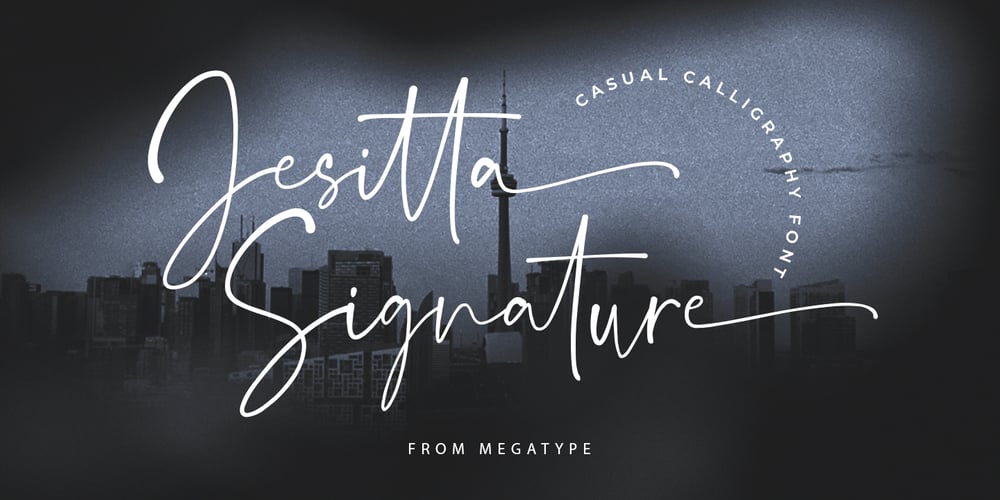
Jesitta Signature Swash
Jesitta Signature Swash font
Jesitta Signature Swash Font Family was designed by M Akmal and published by Mega Type. Jesitta Signature Swash contains 2 styles and family package options. Jesitta Signature Font is a modern and elegant signature style script font with magical ink strokes.Jesitta Signature is a great choice for watermarks on photography, advertising, logos & branding, watermarks, weddings, invitations, product design, labels and other design projects.Please contact us if you have any questions, we are happy to help you!